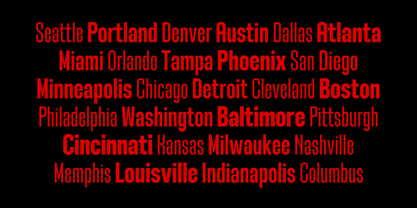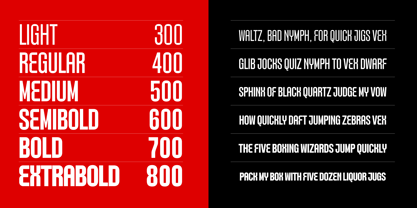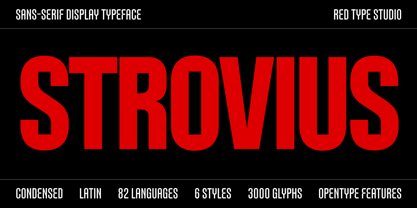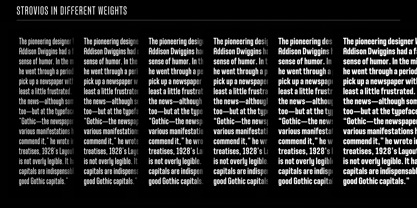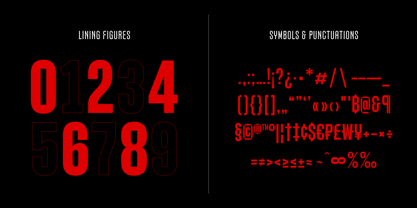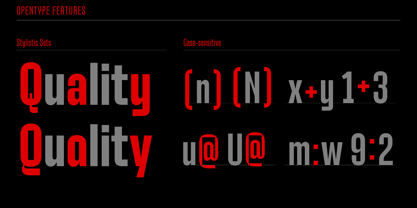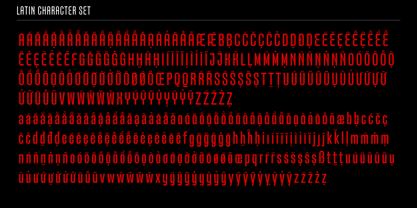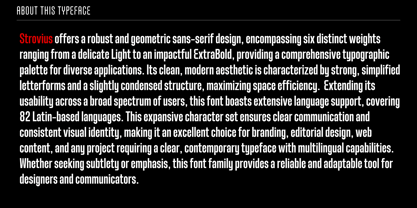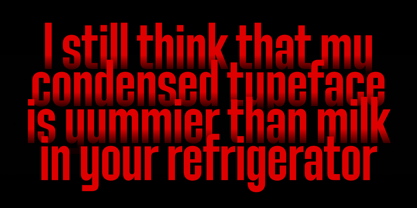
Strovius
by Red Type
The Strovius Font Family was designed by Quang Ngo and published by Red Type. Strovius contains 6 styles and family package options.
Strovius offers a robust and geometric sans-serif design, encompassing six distinct weights ranging from a delicate Light to an impactful ExtraBold, providing a comprehensive typographic palette for diverse applications. Its clean, modern aesthetic is characterized by strong, simplified letterforms and a slightly condensed structure, maximizing space efficiency. Extending its usability across a broad spectrum of users, this font boasts extensive language support, covering 82 Latin-based languages. This expansive character set ensures clear communication and consistent visual identity, making it an excellent choice for branding, editorial design, web content, and any project requiring a clear, contemporary typeface with multilingual capabilities. Whether seeking subtlety or emphasis, this font family provides a reliable and adaptable tool for designers and communicators.